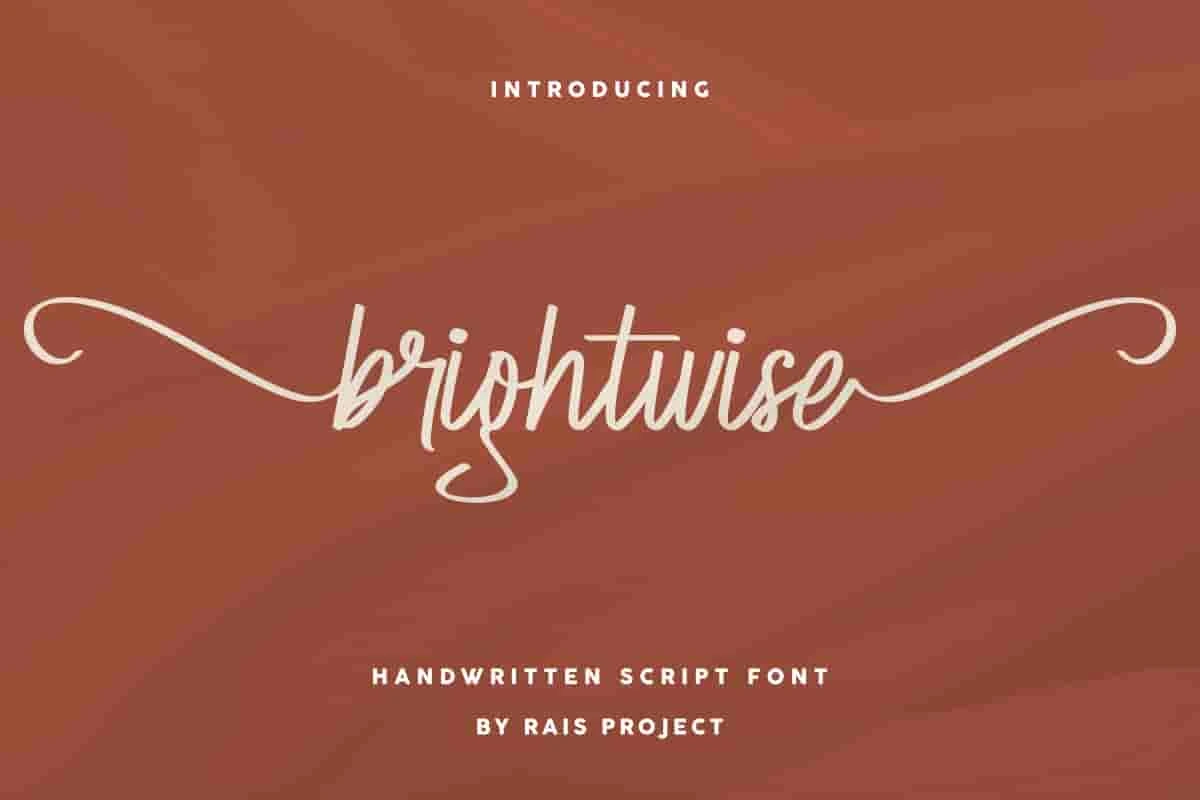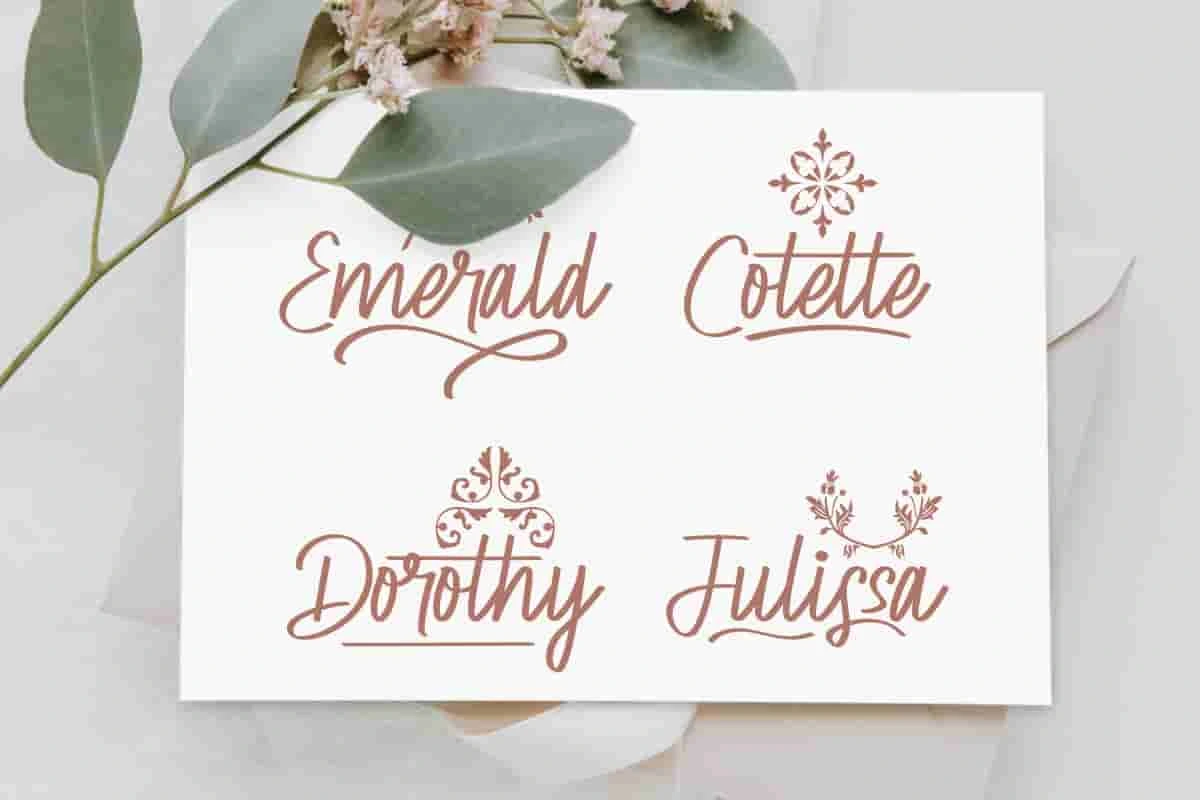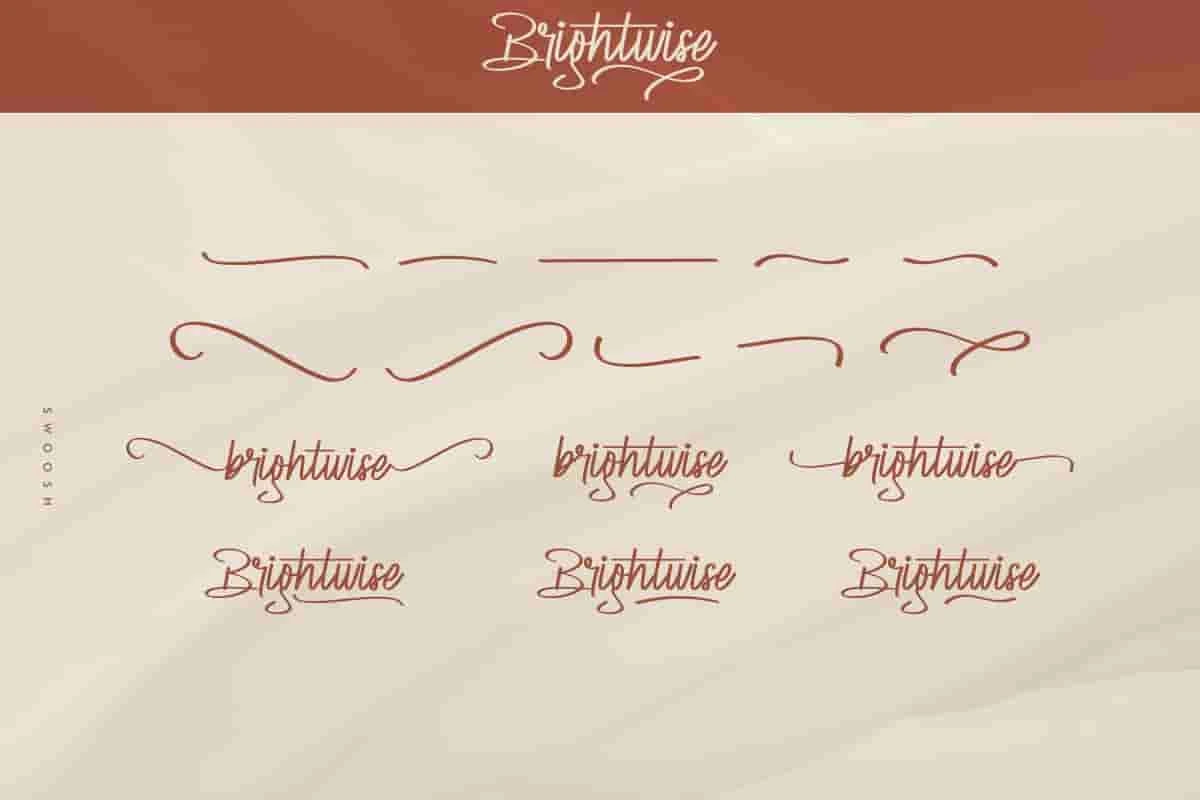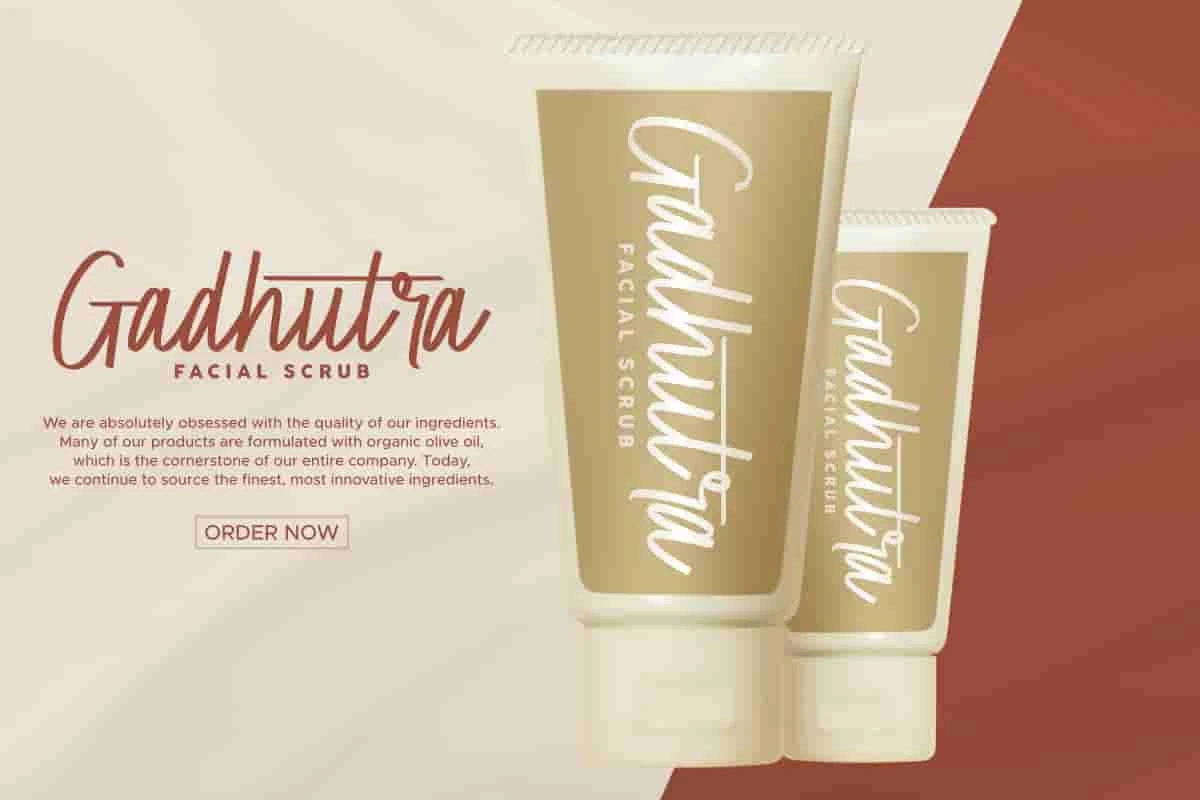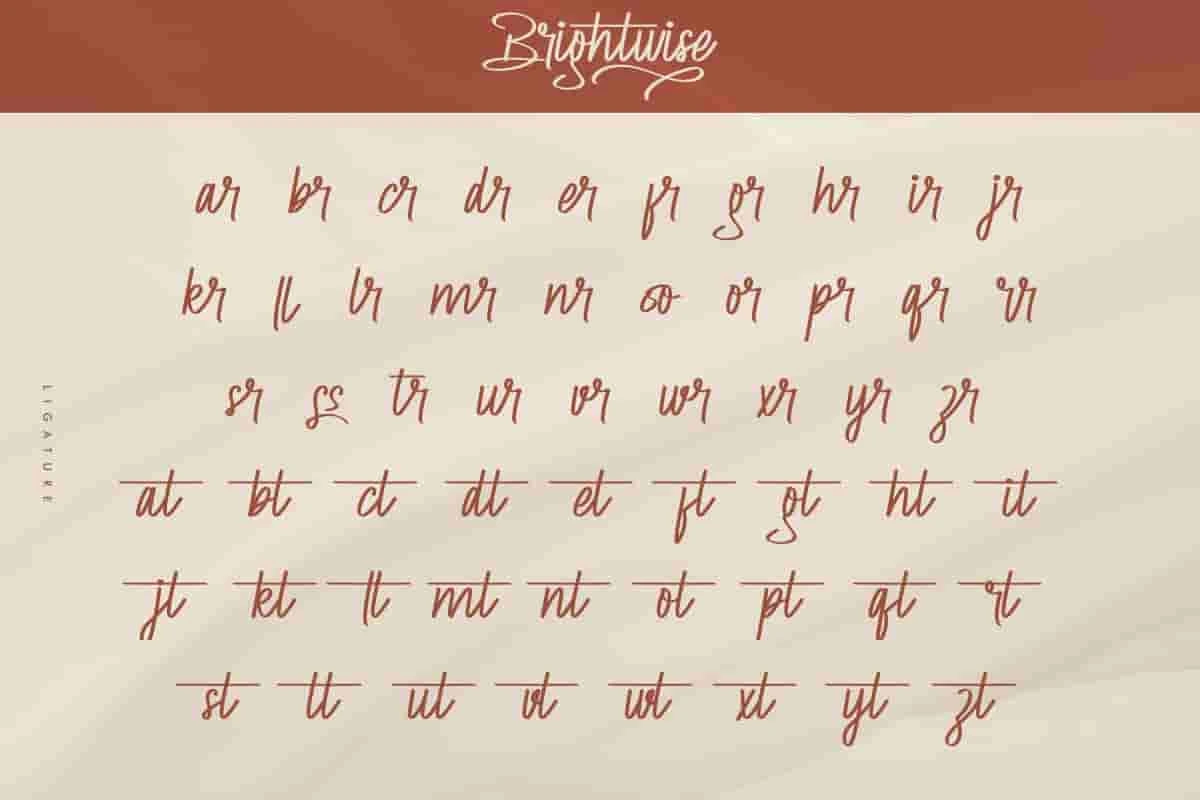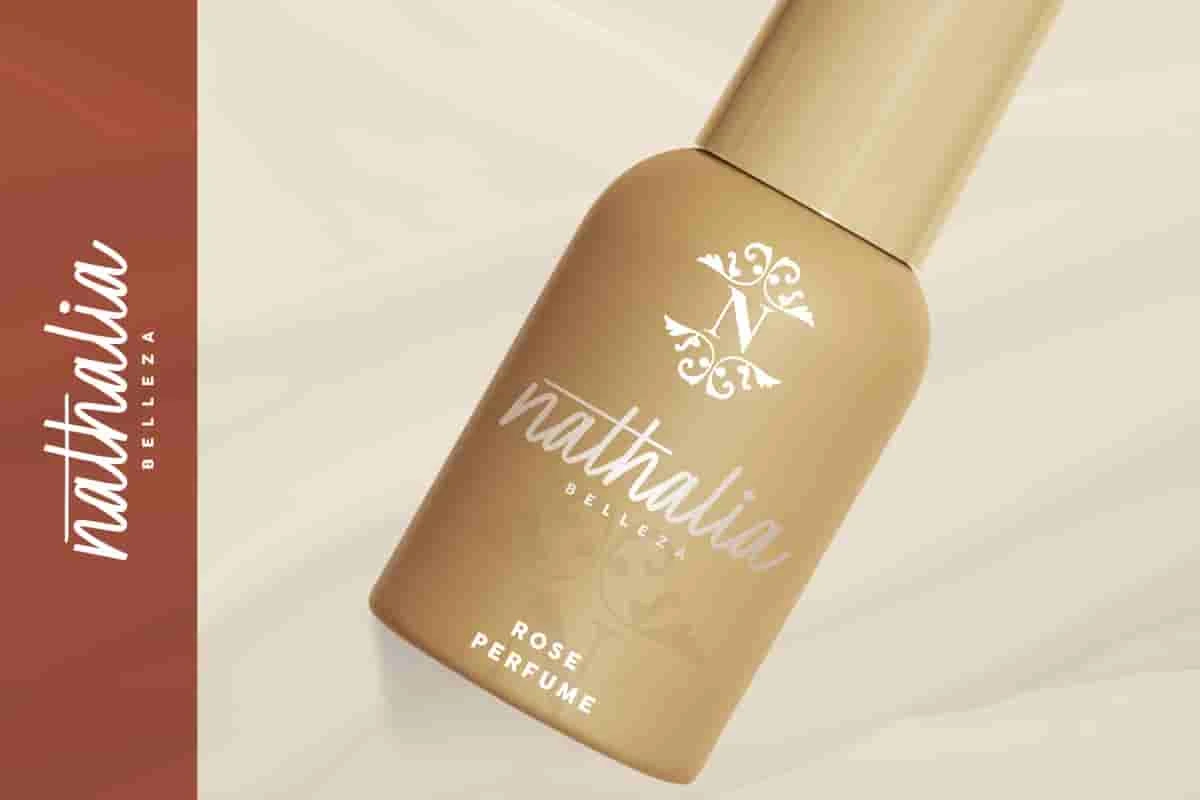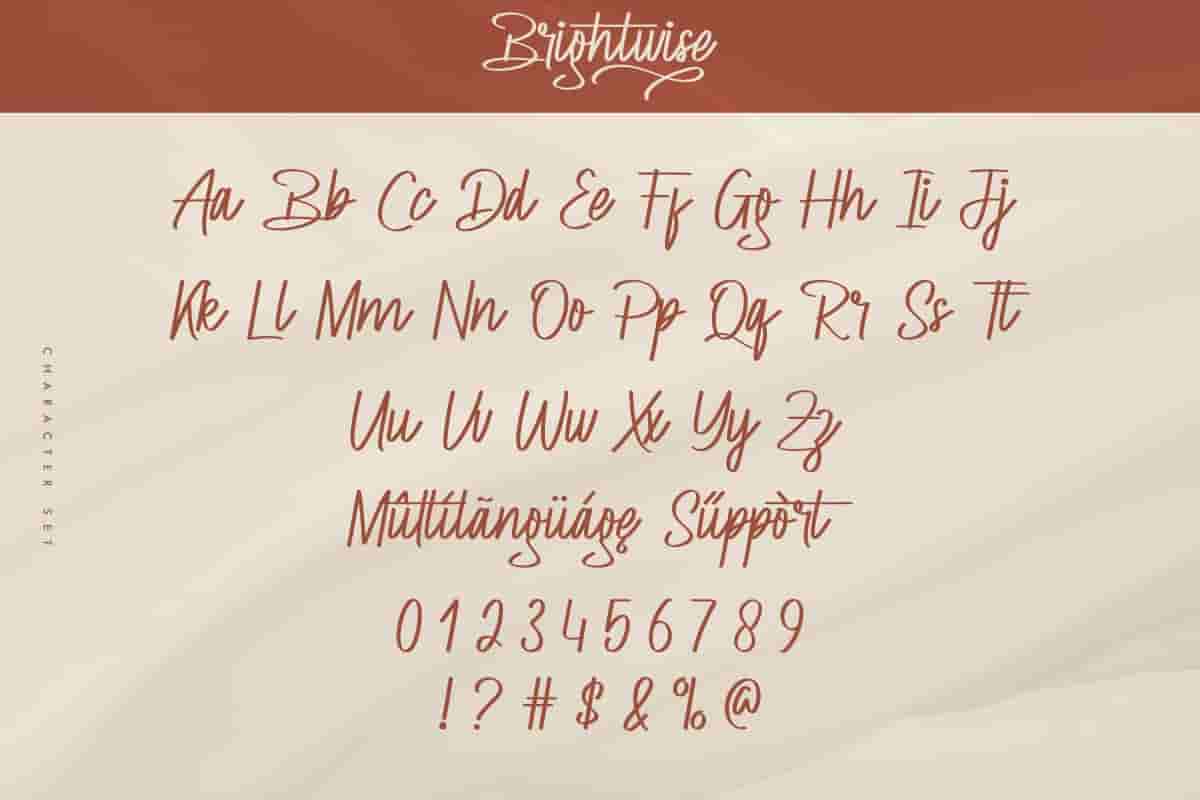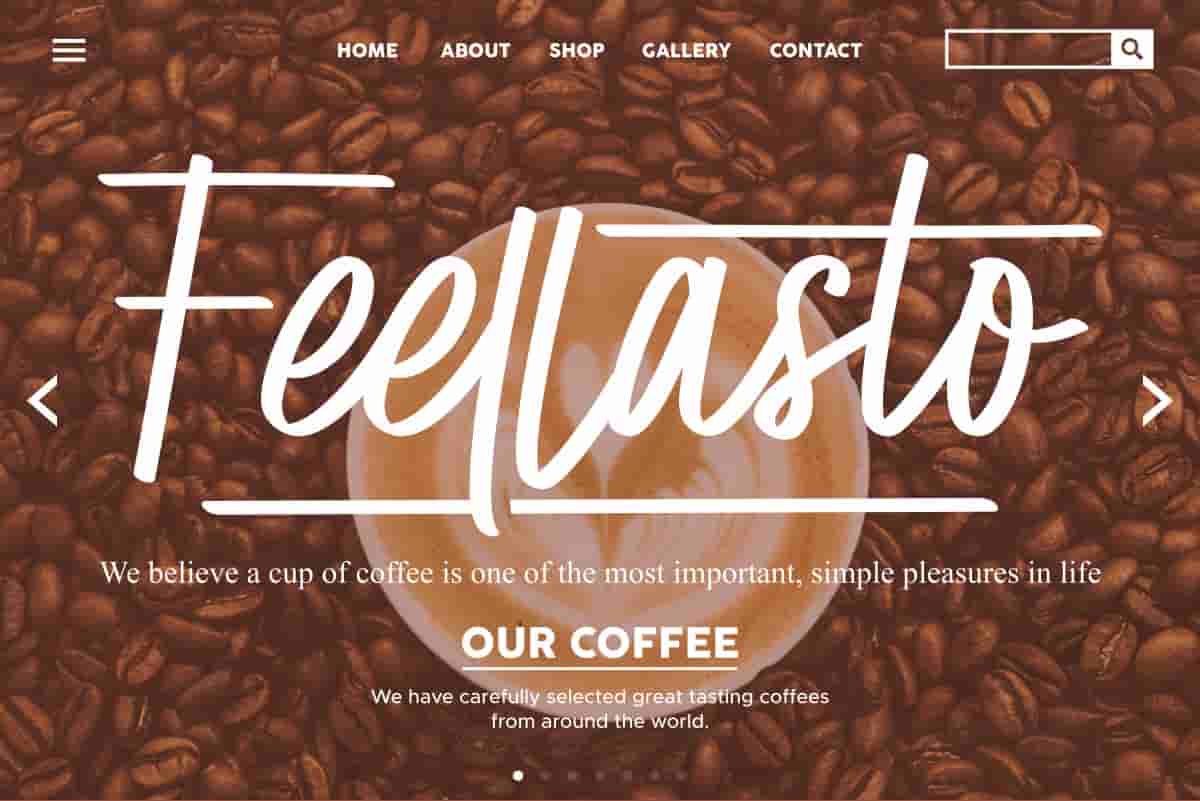
Brightwise Font is a casual handwriting script font. You can see the demo font below. You can also input any word you want so you can see what it will look like :
Brightwise Font will be great for any of your special projects including : weddings, promotion, events, branding, advertising, magazine, shopping, signage, invitation, stationery, social media posts, product packaging, product designs, label, photography, watermark or and any projects that need handwriting style.
Brightwise Font is a modern serif typeface designed to make your brand shine with sophistication and style. With clean lines, refined curves, and timeless character, Brightwise adds a professional yet artistic touch to any project.